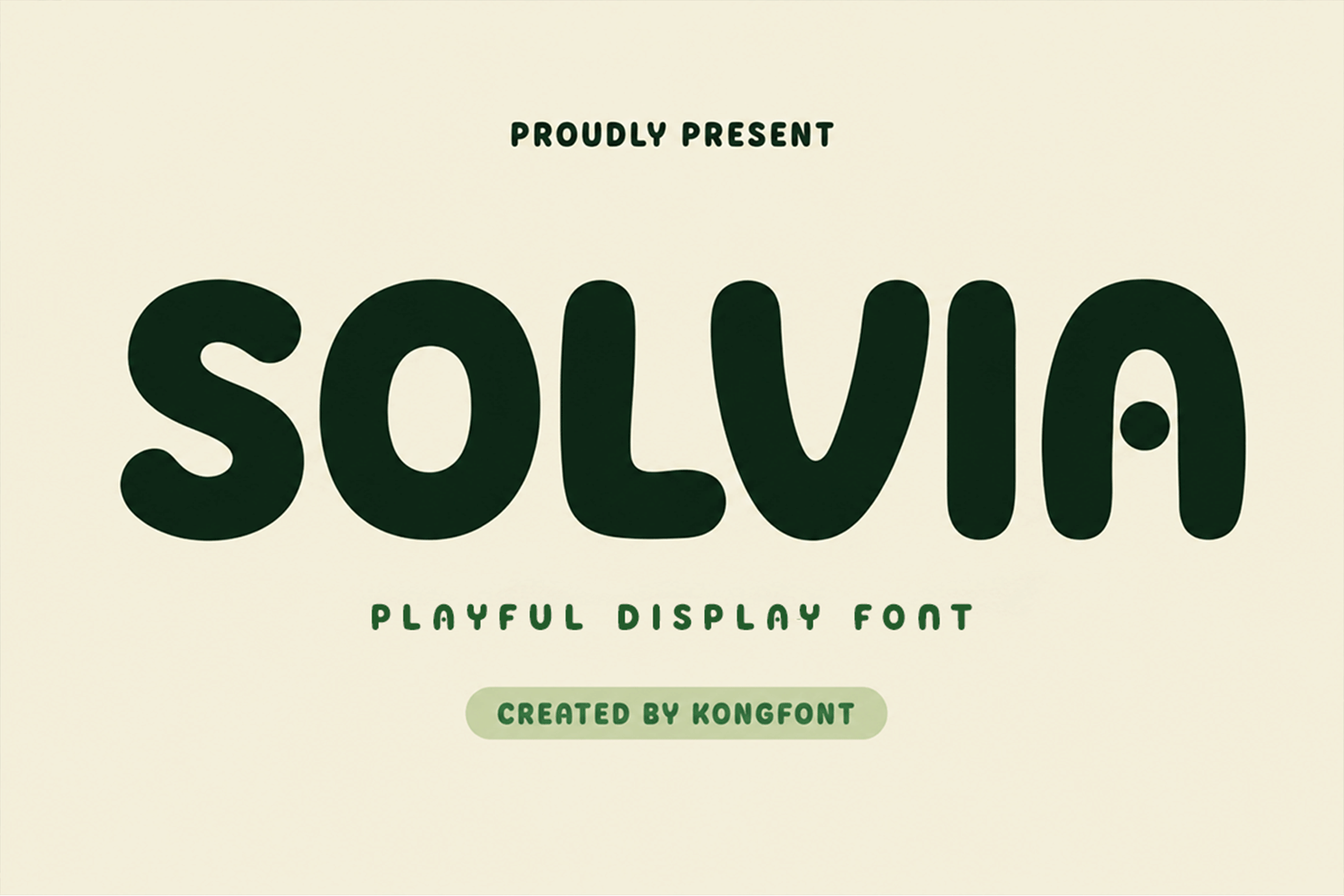
Solvia-Playful Rounded Display Font
Solvia - Playful Rounded Display Font
Meet "Solvia," a playful rounded display font created with soft curves, chunky letterforms, and a cheerful modern personality. Its bold and friendly construction makes every word feel approachable, expressive, and full of character, making Solvia a great choice for designs that need a fun and memorable visual style.
With its smooth shapes and distinctive rounded structure, Solvia works beautifully for logos, posters, children’s designs, packaging, stickers, social media graphics, merchandise, product labels, headlines, and creative branding. Its playful appearance helps typography stand out while maintaining a clean and contemporary look.